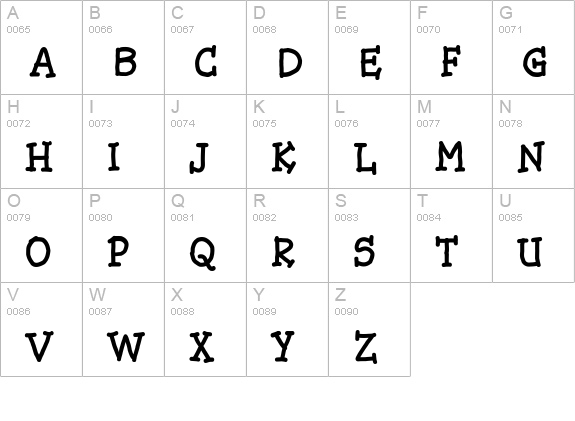
GweetHmkBold is a stunning and bold display font that exudes elegance and sophistication. With its unique and eye-catching design, this font is perfect for making a statement in your projects. Whether you are designing a logo, poster, or branding materials, GweetHmkBold will add a touch of class and style. The best part? GweetHmkBold is available for free download at FontsMarket.com. This means you can easily access this beautiful font and use it in your creative endeavors without any cost. Don't miss out on the opportunity to elevate your designs with GweetHmkBold - download it today and let your creativity shine!